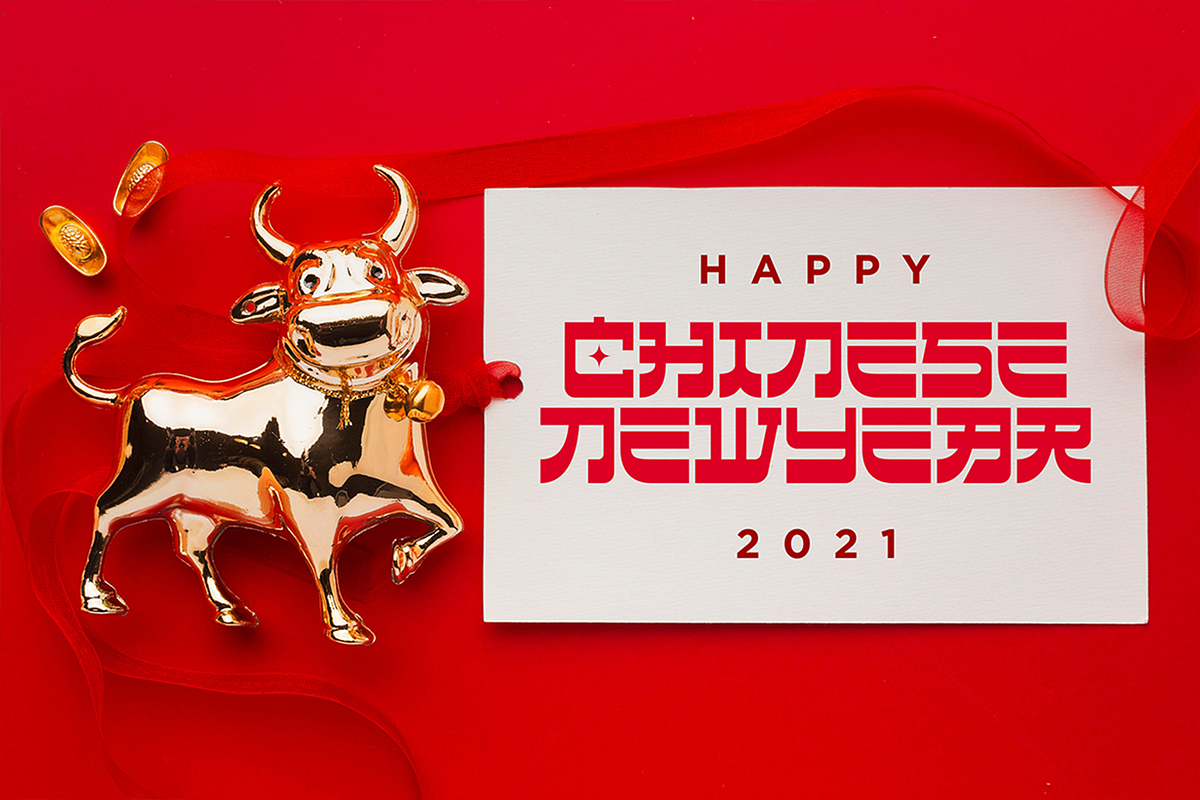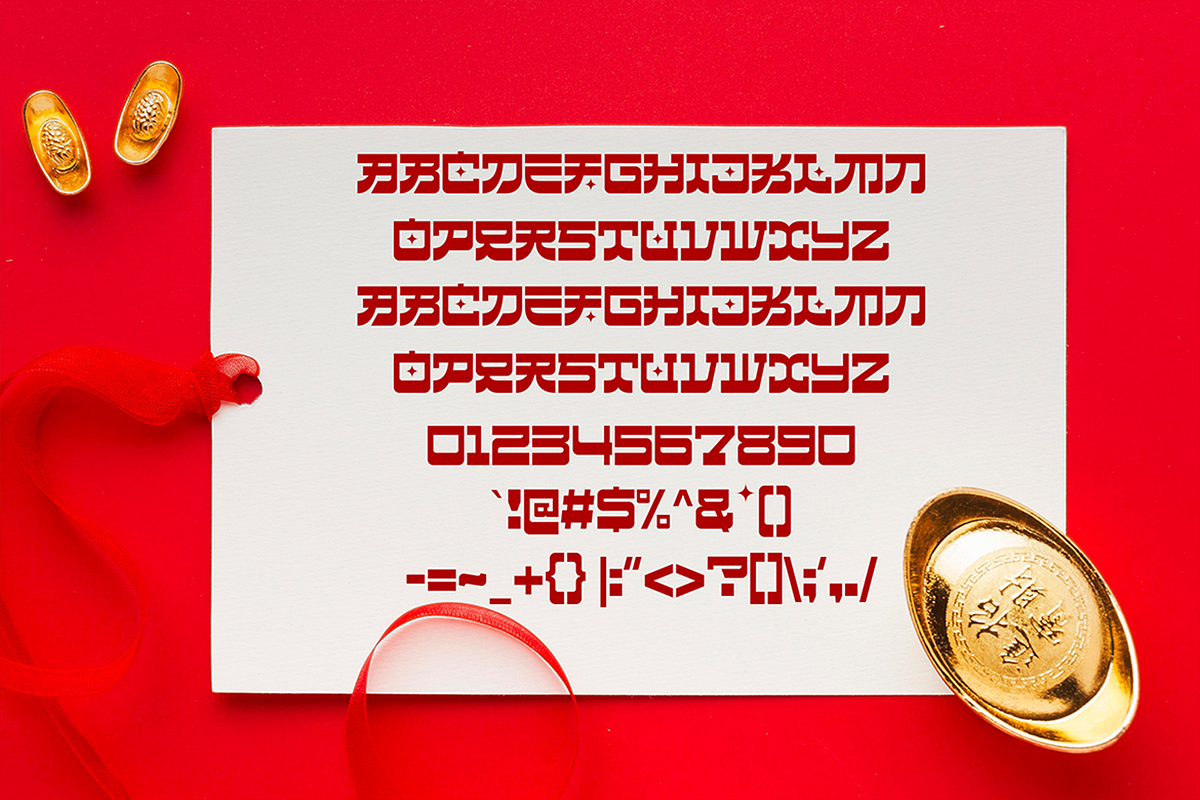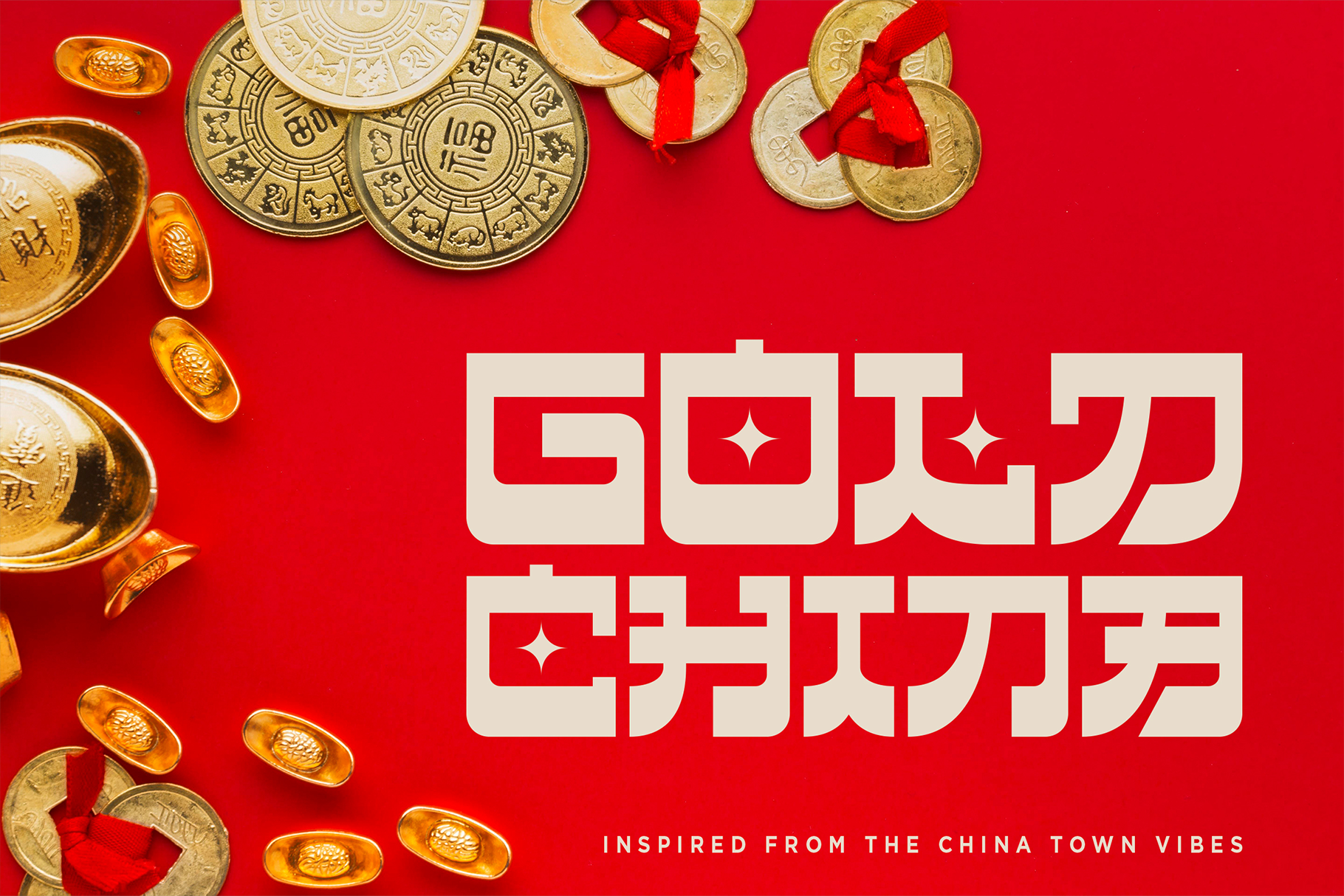
Gold China – Chinese Lunar Fonts
Inspired by the shape of Chinese letters, crafted in futuristic bold and square.
Perfectly fit for your Chinese New Year projects, Logo, Branding, Restaurant, China Town decoration, Chinese concept, anytime you need an instant vibe of it, Gold China is an easy way to go.
- All Caps font (no lowercase)